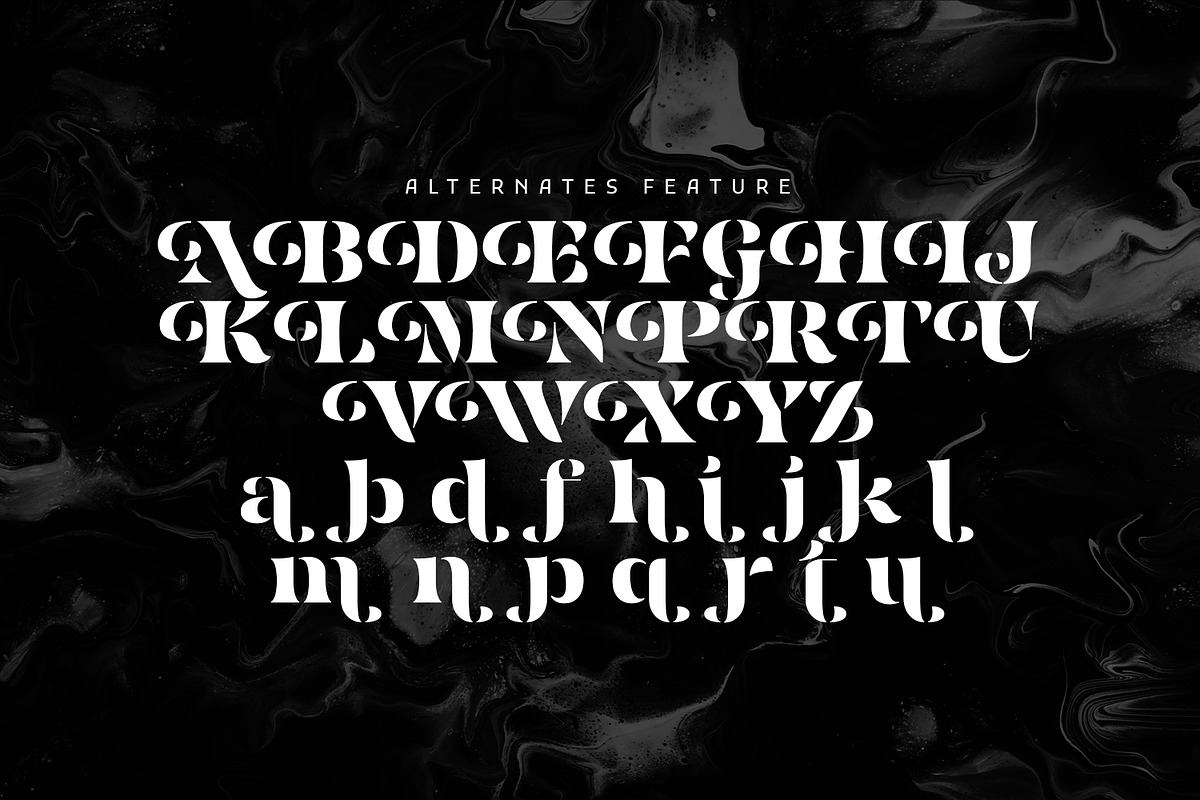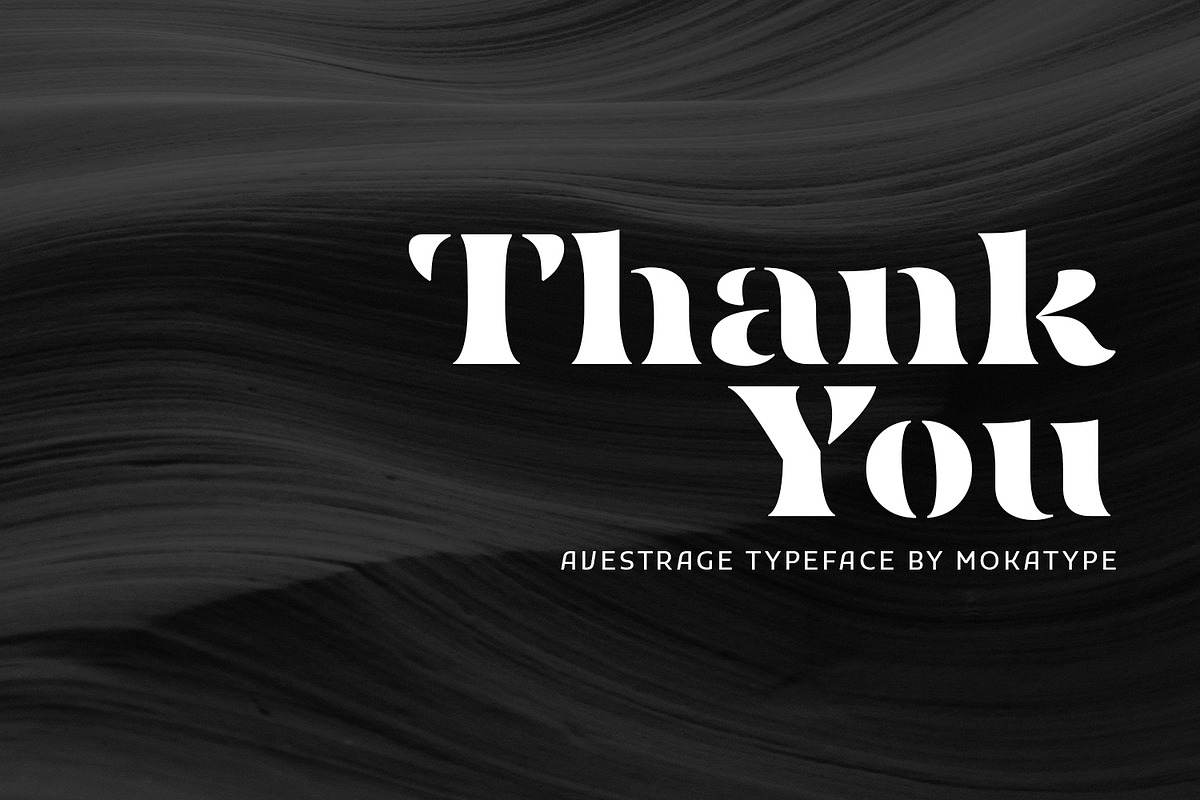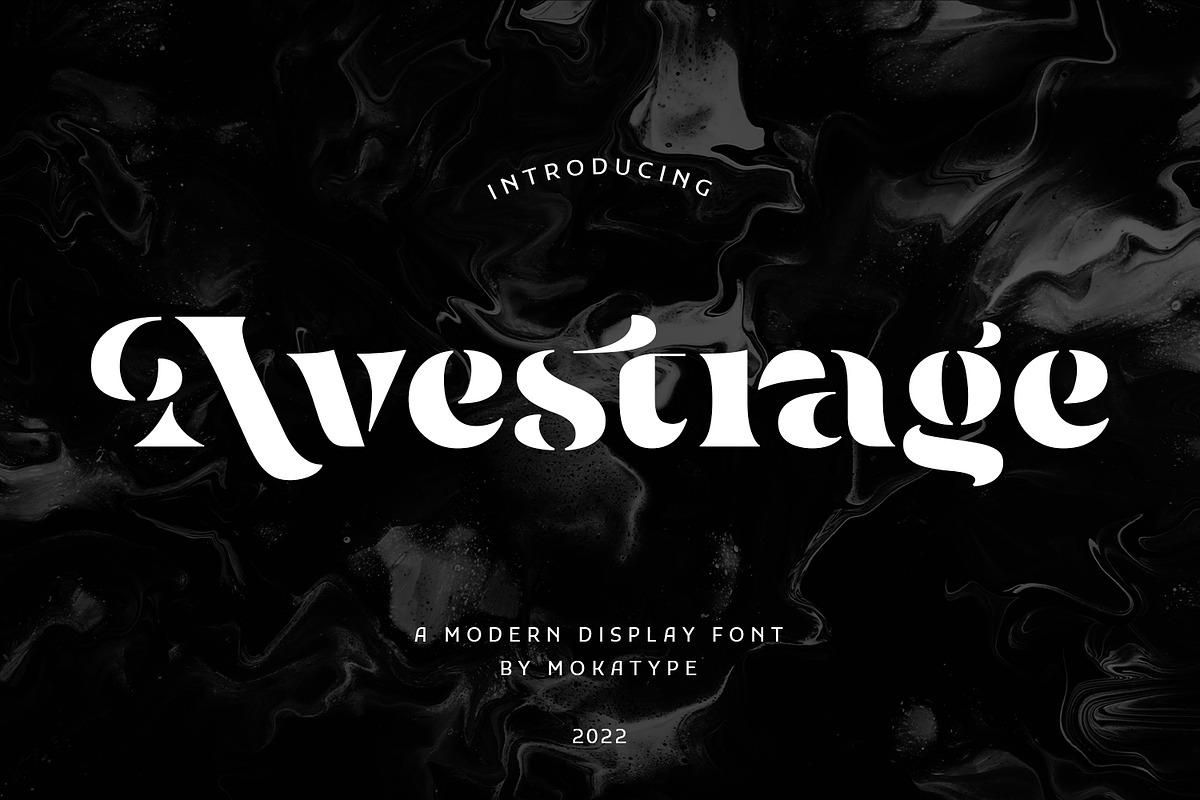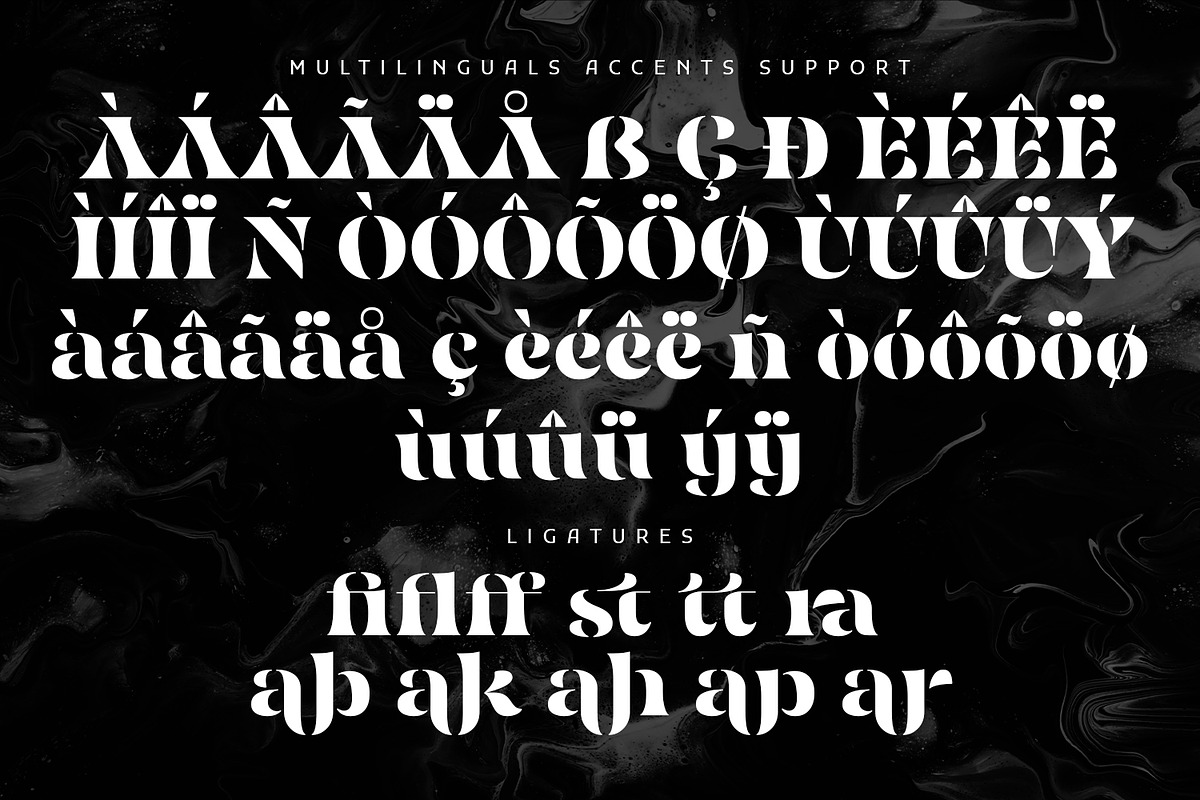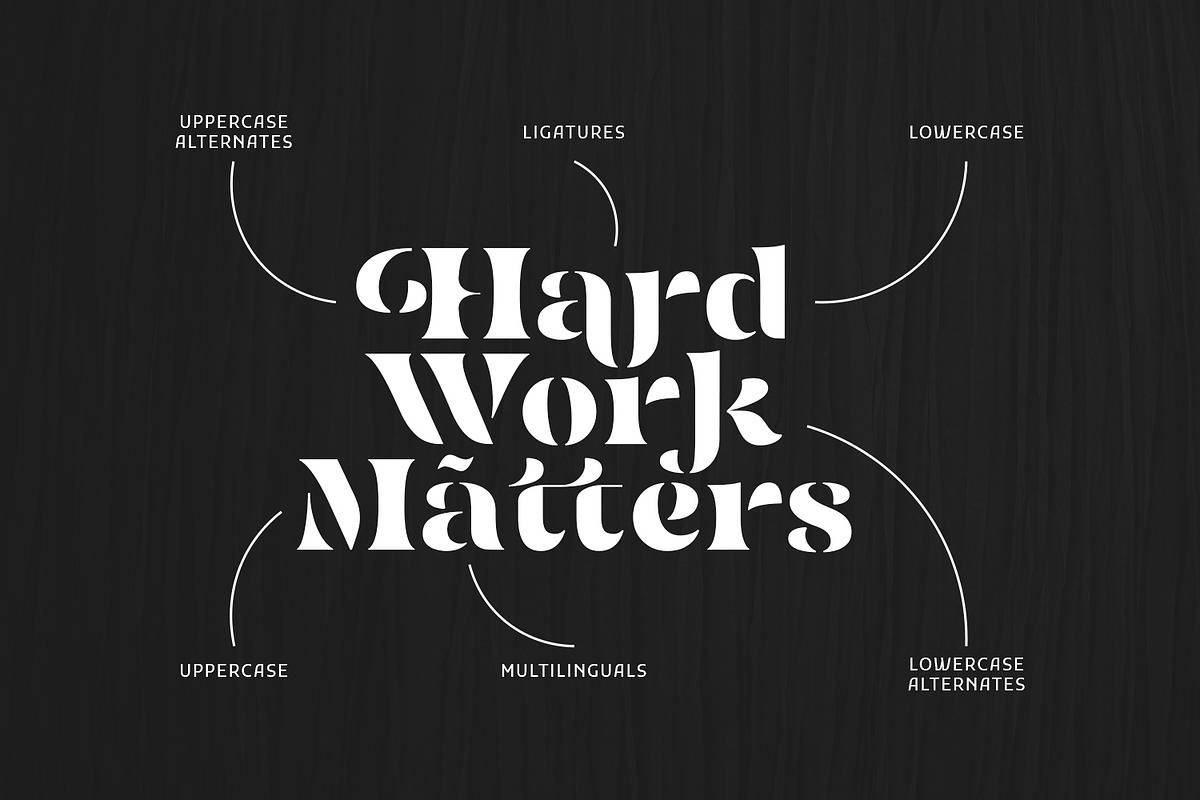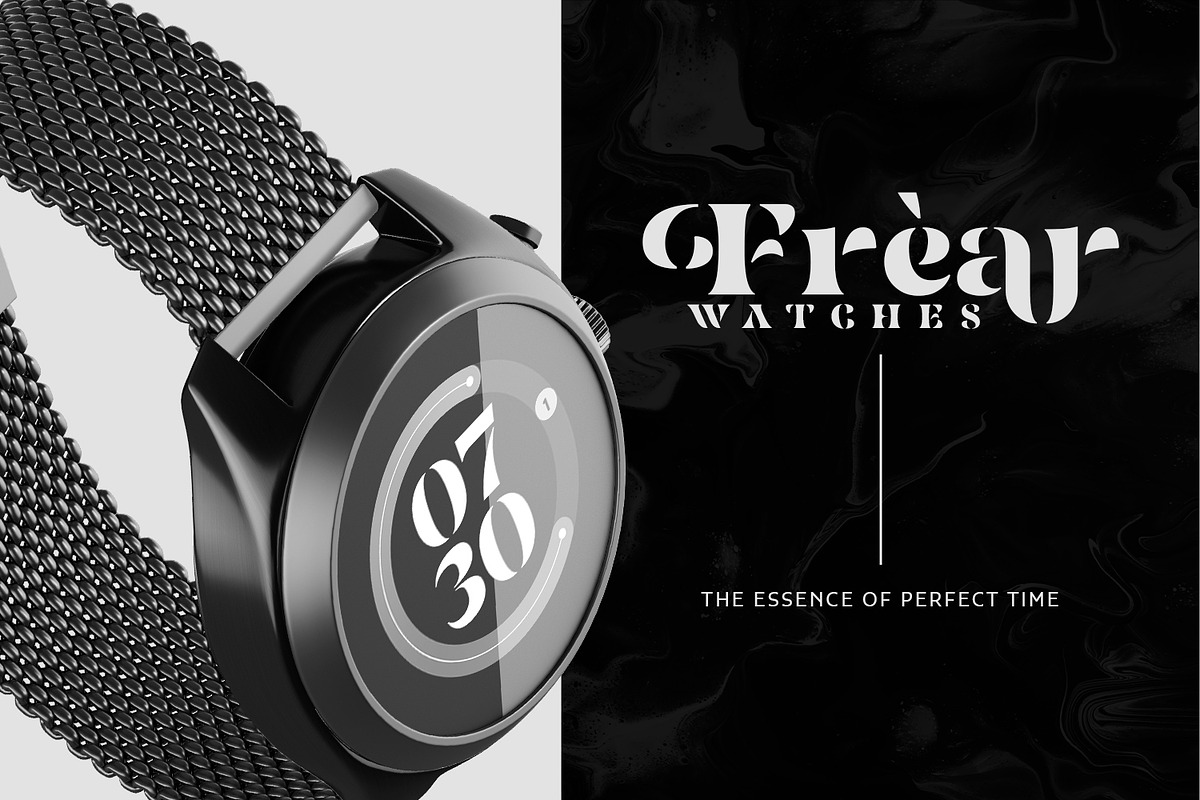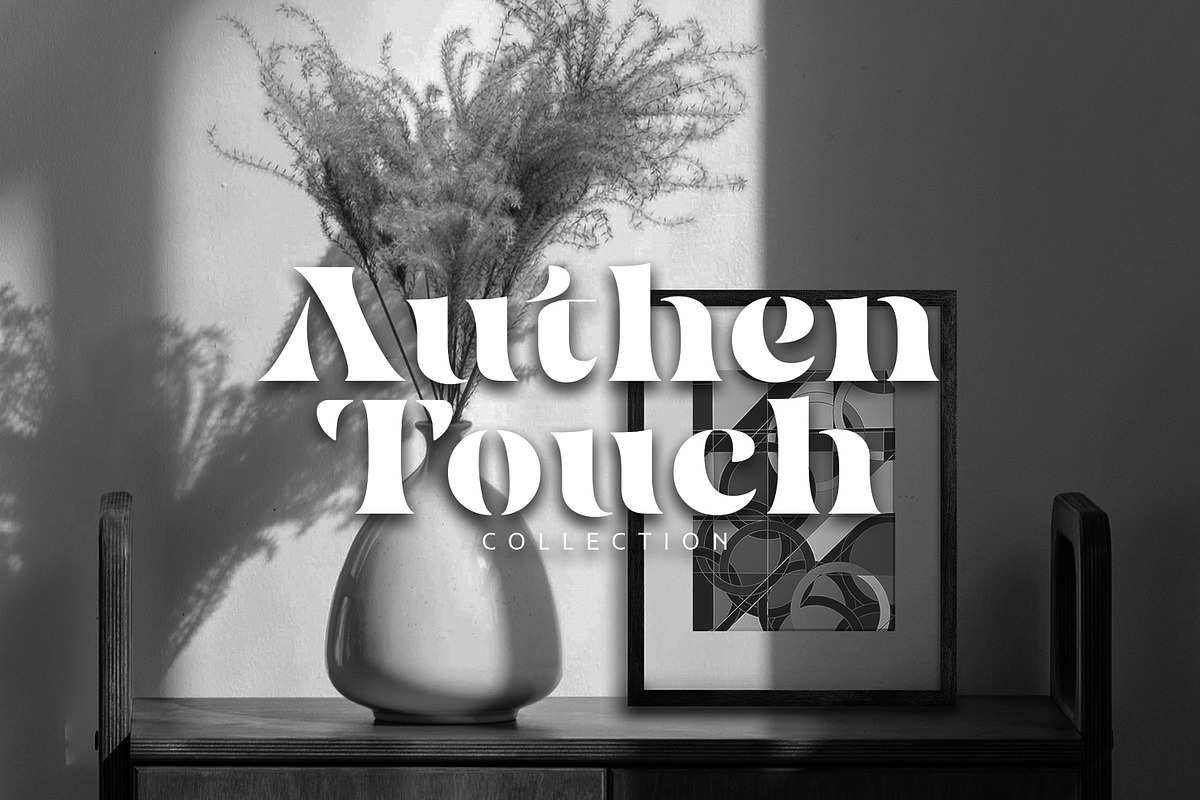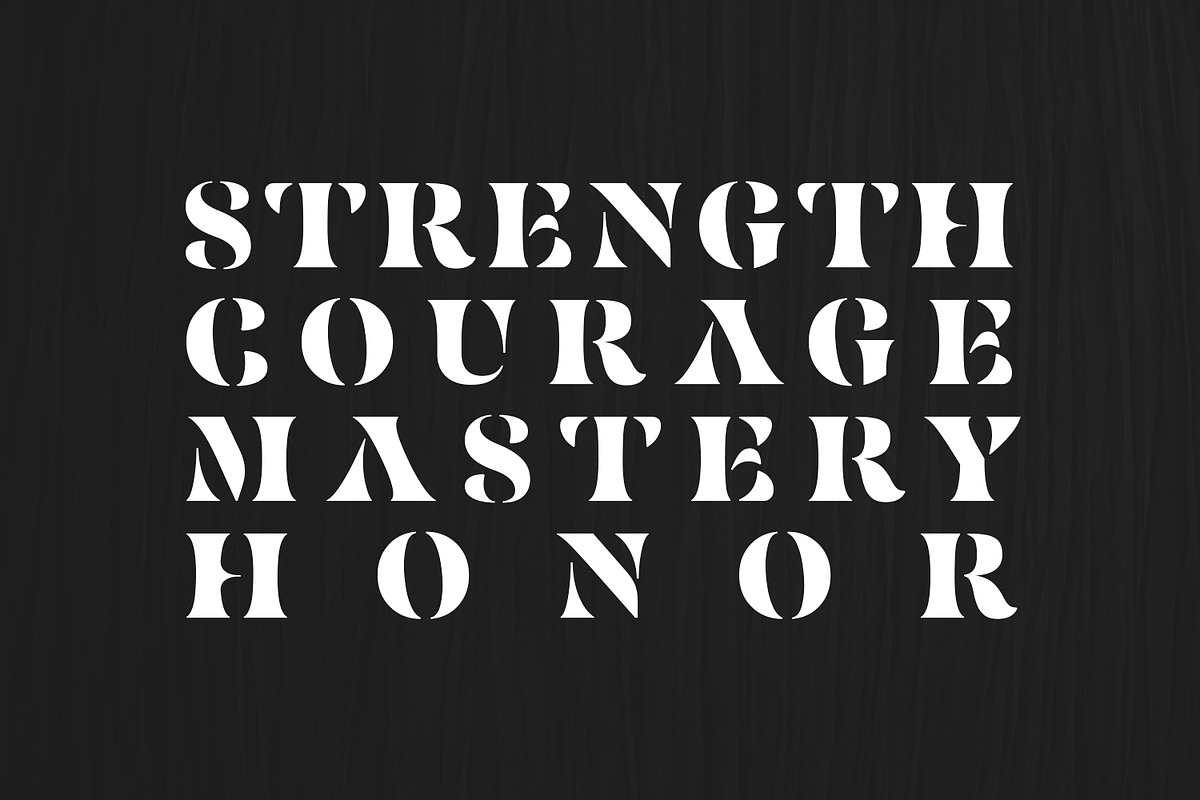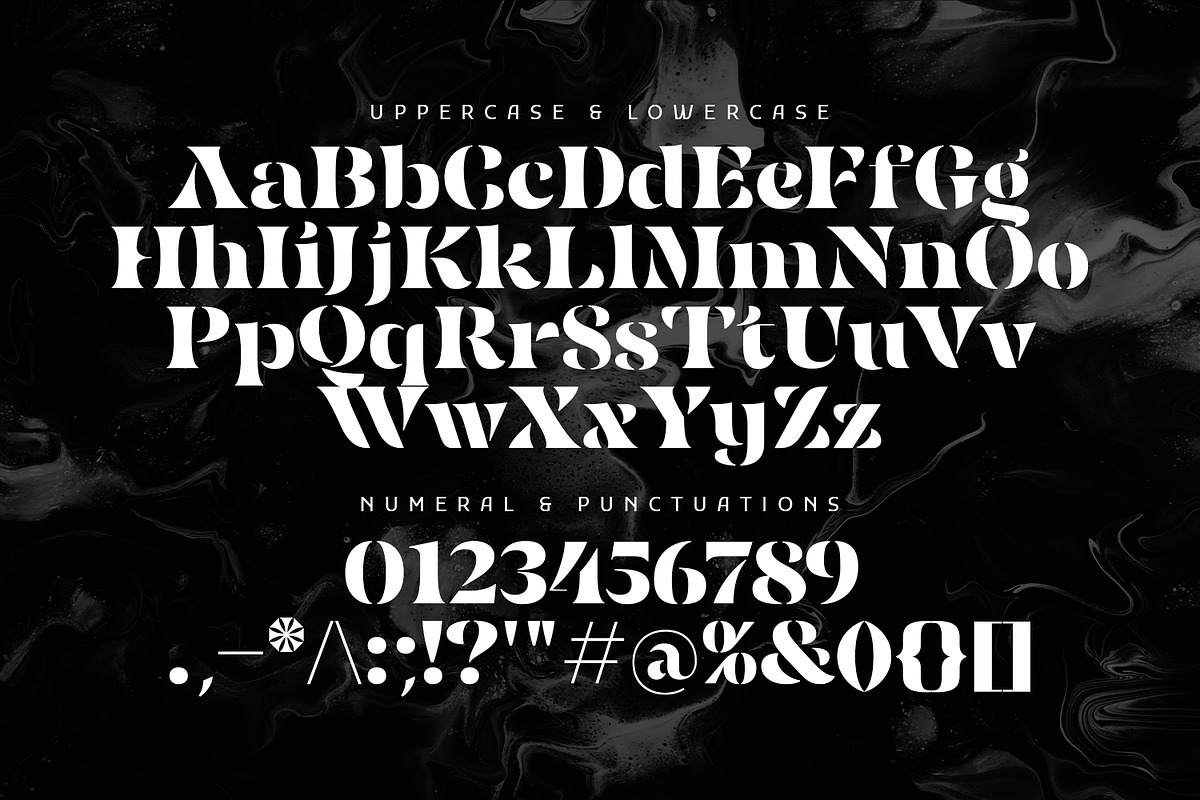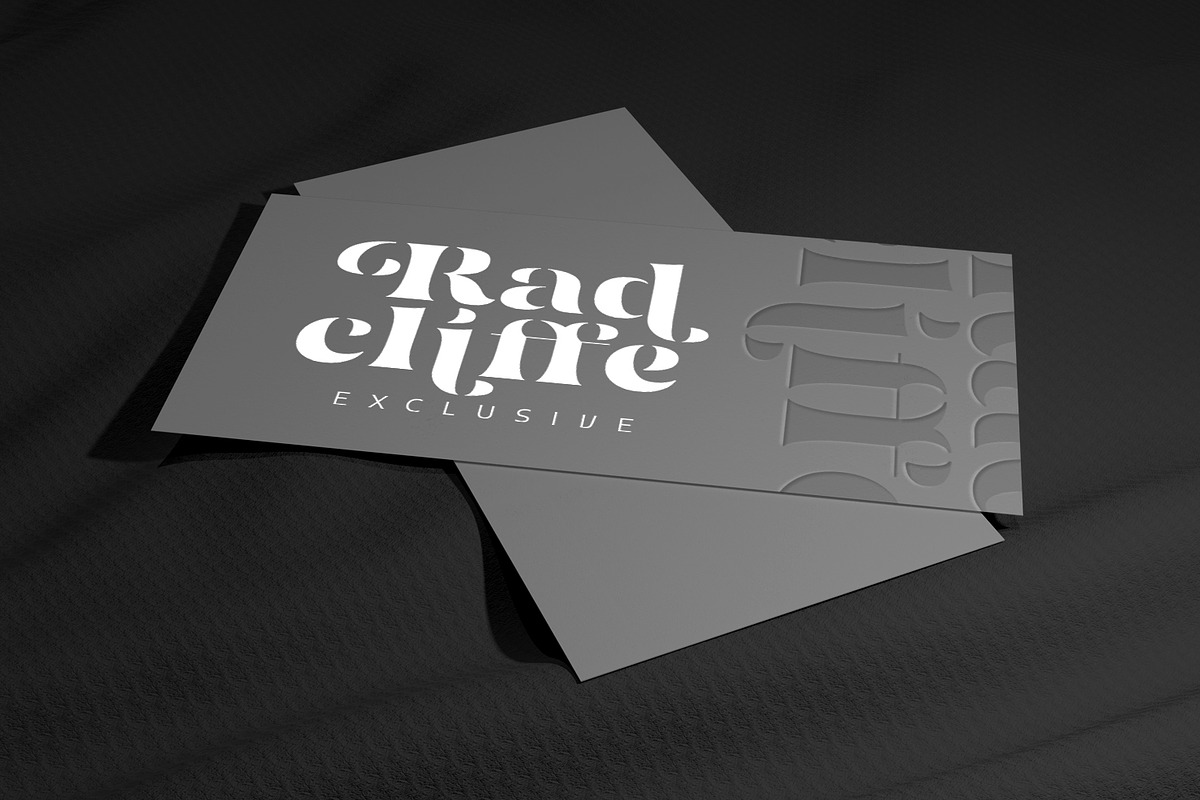
Avestrage - Stencil Serif
Avestrage is a bold stencil serif, build with stylish look, and include bunch of alternates and ligatures, to make your presentation look satisfying. This font can used for clean design and if you want make it retro look this font is suitable too because this font is very versatile for any design. This font is one weight only, you can creat designs such as posters, headlines, merch, web or app interfaces, etc.
- Ligatures (Opentype features)